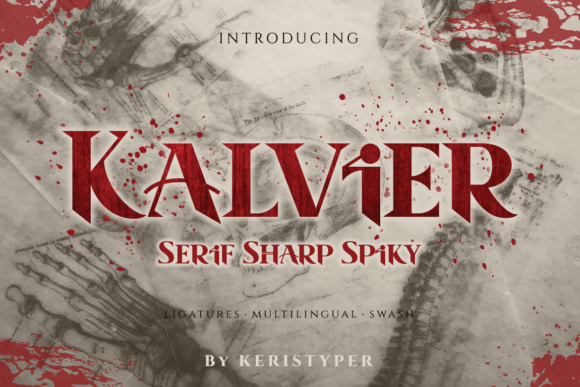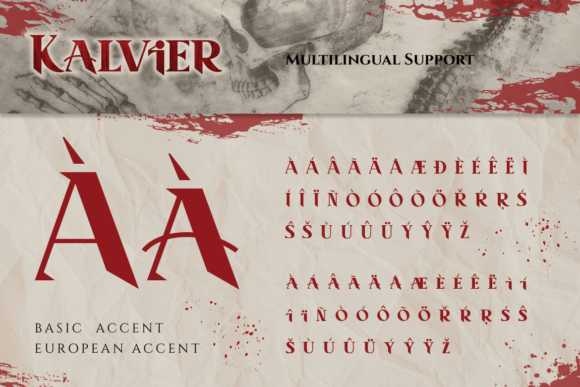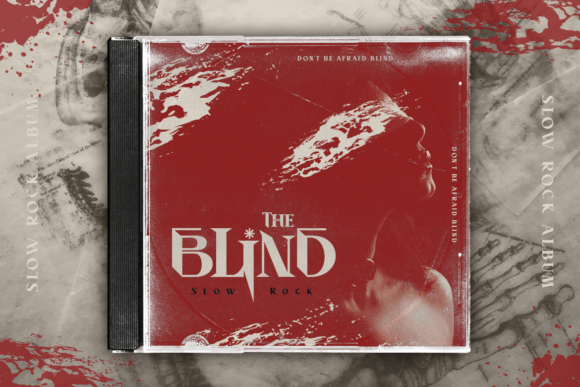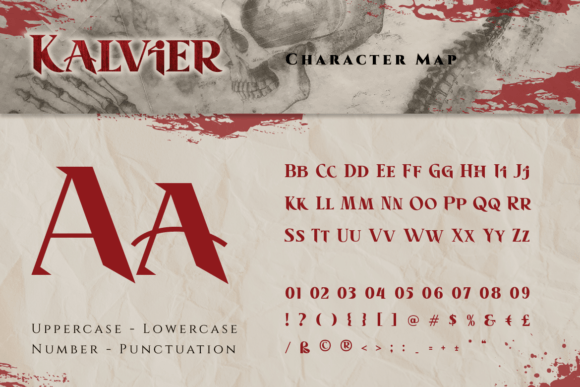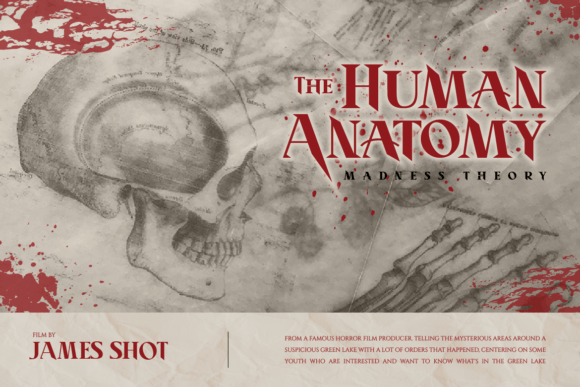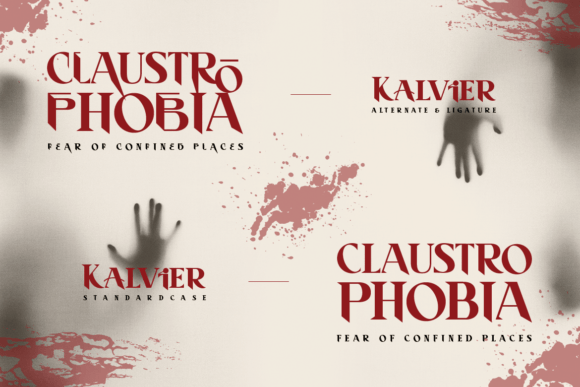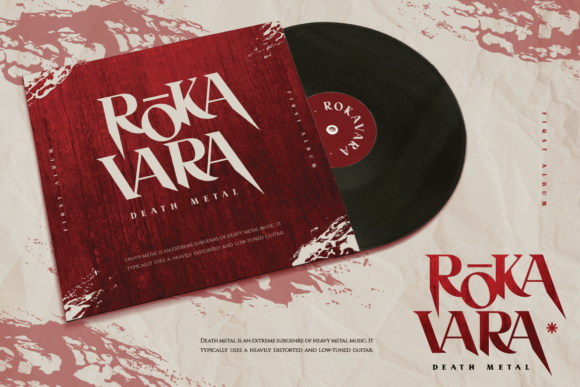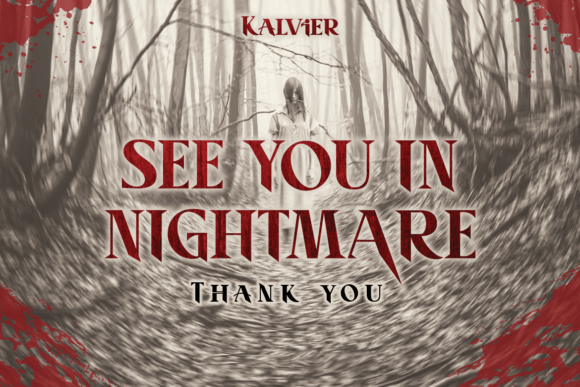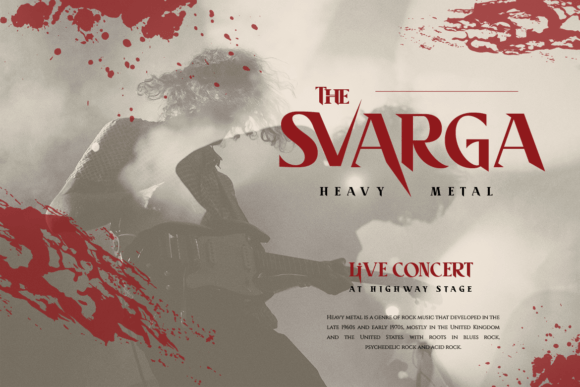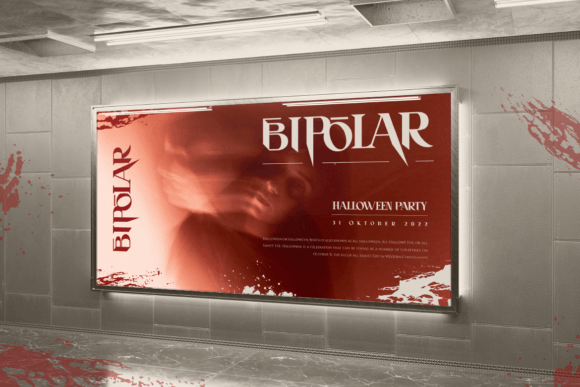
Kalvier
Kalvier: A Sharp and Spiky Horror Slab Serif Font
Kalvier is a horror-themed slab serif font featuring sharp, spiky design elements. This versatile typeface is perfect for Halloween projects and various applications, from logos to long-form text.
Key Features of Kalvier
• Horror Design: Offers sharp and spiky letterforms.
• Halloween Style: Brings spooky character to designs.
• Versatile Appeal: Works for both short and long text.
• Bold Impact: Creates commanding visual presence[2].
Best Uses for Kalvier
Thanks to its versatile characteristics, Kalvier works especially well for:
When using Kalvier in your designs, keep these tips in mind:
• Try it for headlines to showcase its sharp style.
• Use its spiky features for horror-themed projects.
• Take advantage of its readability for longer text[4].
• Let its versatility work across different applications.
To sum up, Kalvier is an excellent choice for designers seeking a horror-themed slab serif font. Its versatility makes it perfect for various projects. Whether you’re creating Halloween designs, developing movie titles, or working on book covers, Kalvier offers the perfect blend of spooky style and practical functionality.
Furthermore, Kalvier’s distinctive design allows it to shine in contexts where both horror elements and readability are key. From social media content to long-form text, this font can elevate your projects with its sharp character while maintaining legibility.
In conclusion, Kalvier truly captures the essence of horror design in slab serif typography. Its ability to work across both display and text applications shows how versatile it can be. Therefore, for those wanting to add a touch of Halloween spirit to their work, Kalvier can transform any design with its distinctive style. Ultimately, it’s perfect for designers aiming to make a spooky, sharp impact across various creative projects.